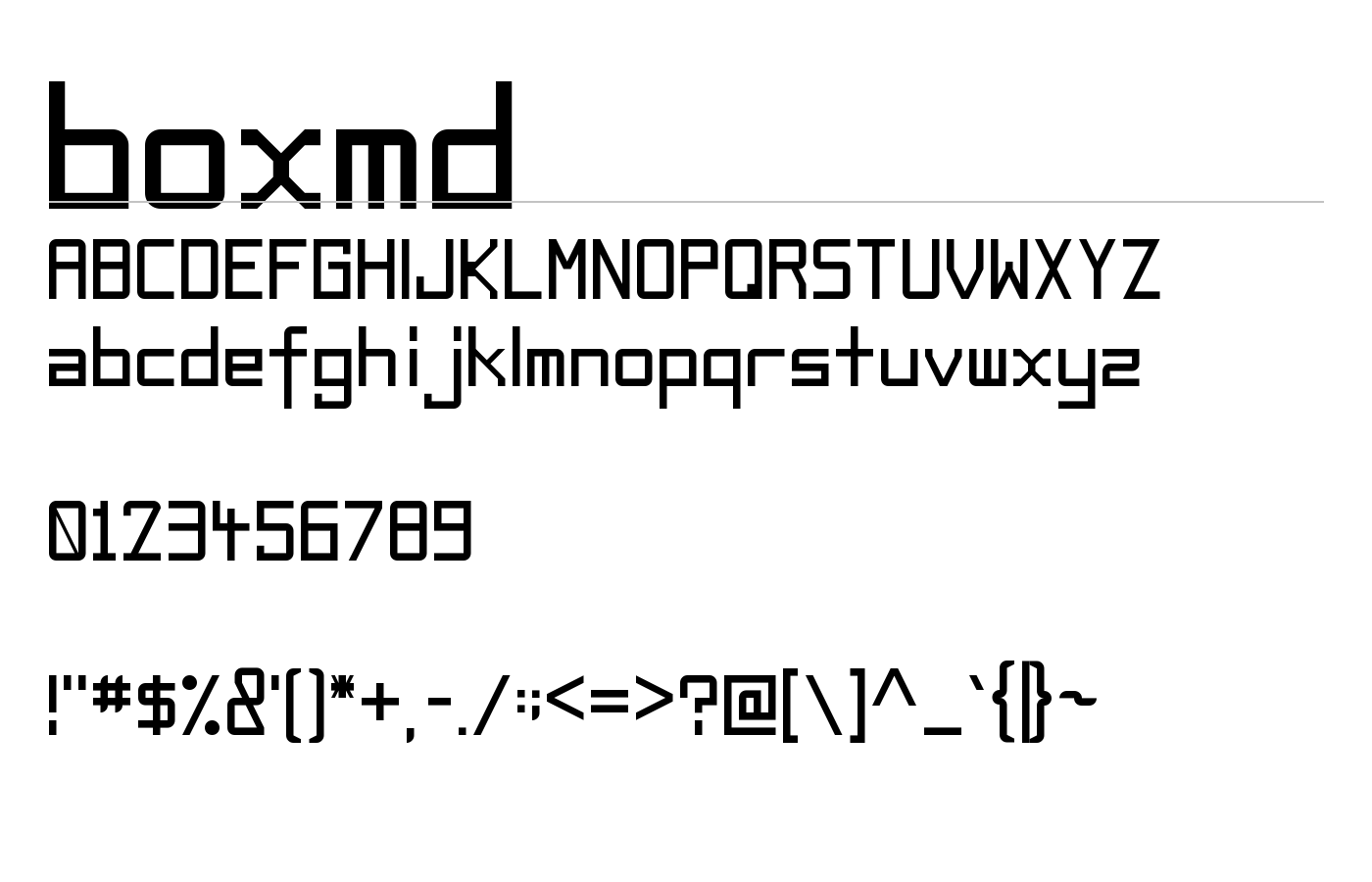
Boxmd is a modern, geometric sans serif font with a technical and futuristic feel. Its medium weight and tall, narrow letterforms give it a clean, precise look, while the sharp angles and consistent stroke width add a sense of structure and simplicity. This font works well for technology branding, digital interfaces, and bold headlines where a contemporary and engineered style is desired.
boxmd Font
About boxmd Font